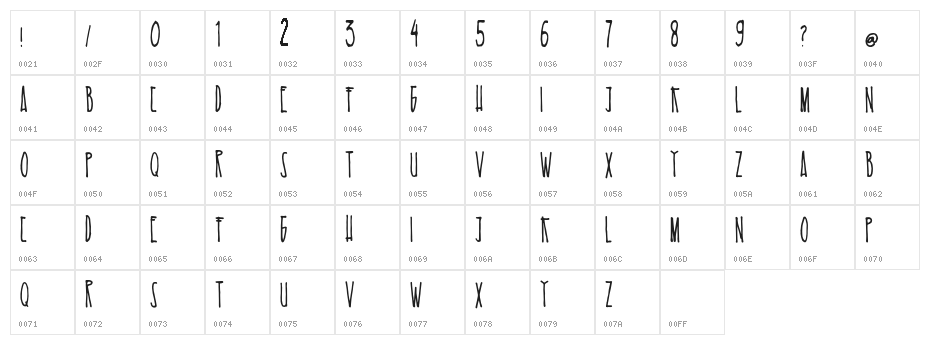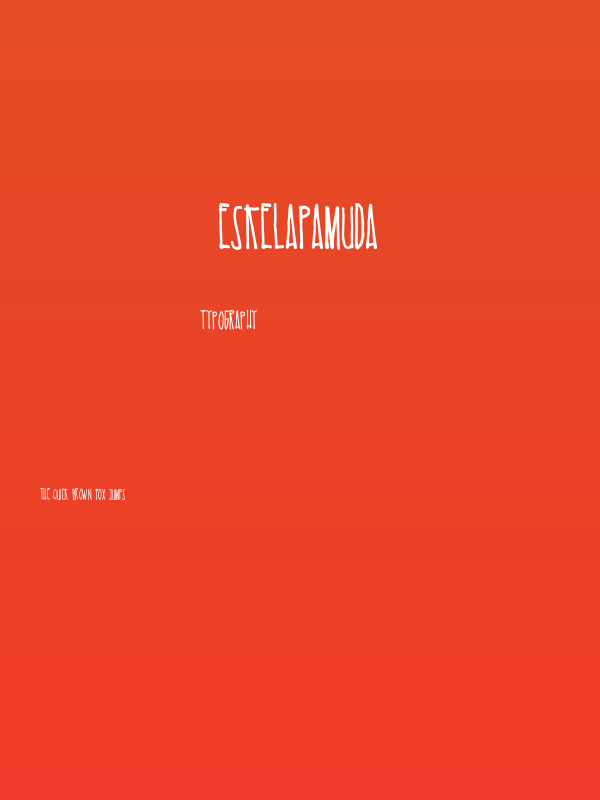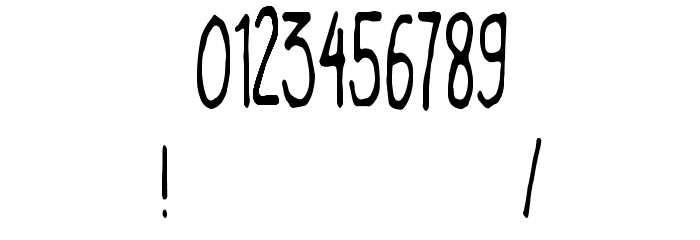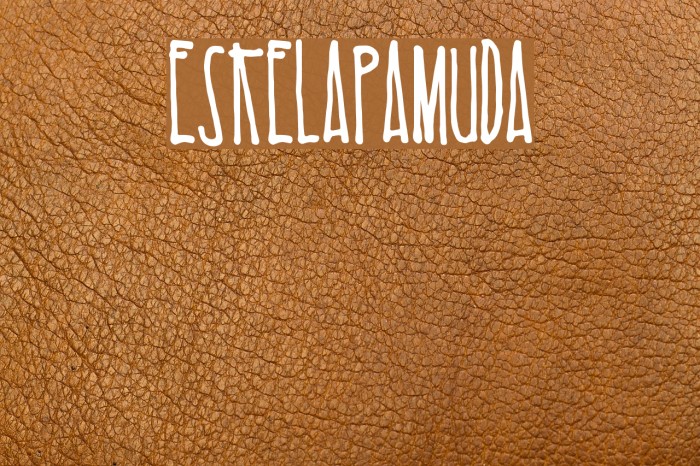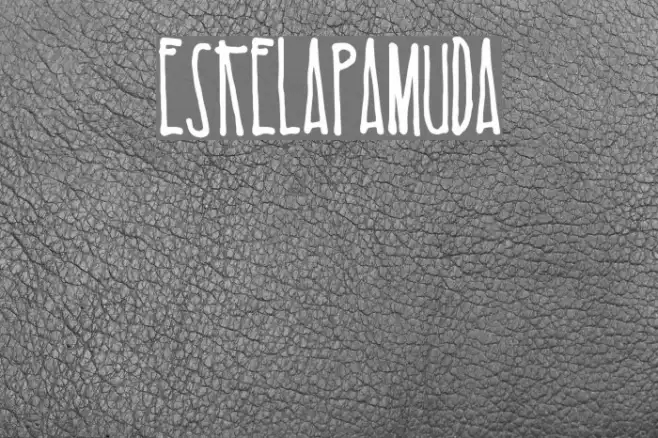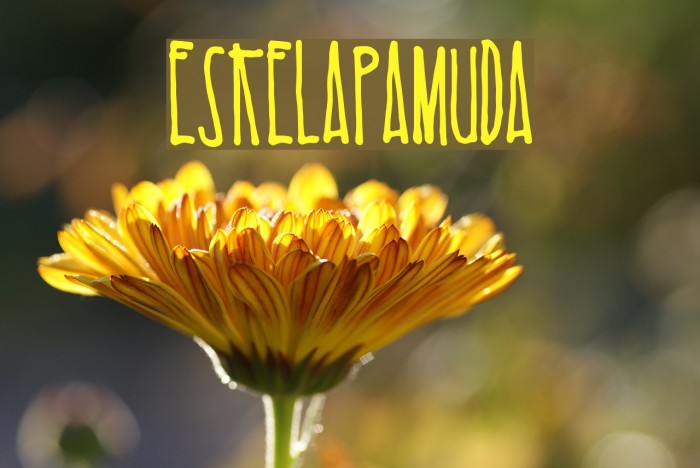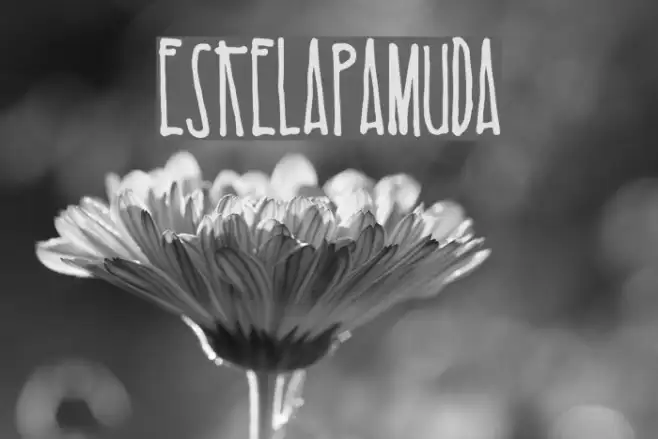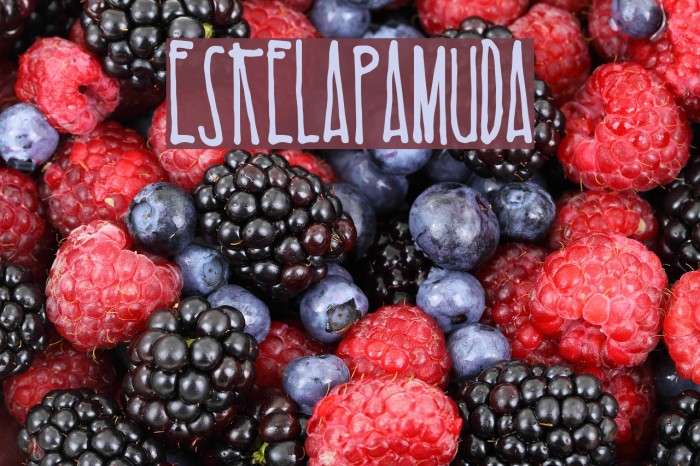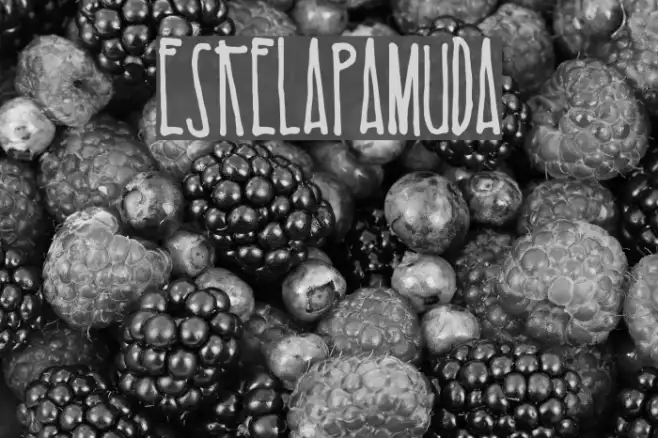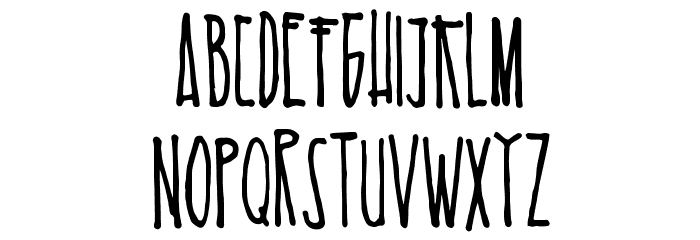
EsKelapaMuda Font
EsKelapaMuda Description
This font features a playful and hand-drawn aesthetic, characterized by its irregular and organic letterforms. The strokes are uneven, giving it a casual and informal look. The uppercase and lowercase letters maintain a consistent style, with a slightly narrow and elongated form. The numbers and special characters follow the same whimsical design, making the font suitable for creative and artistic projects. Its unique style adds a personal touch, making it ideal for designs that require a friendly and approachable feel.
| Proposed Projects | Ideal for children's books, greeting cards, posters, and creative branding projects. |